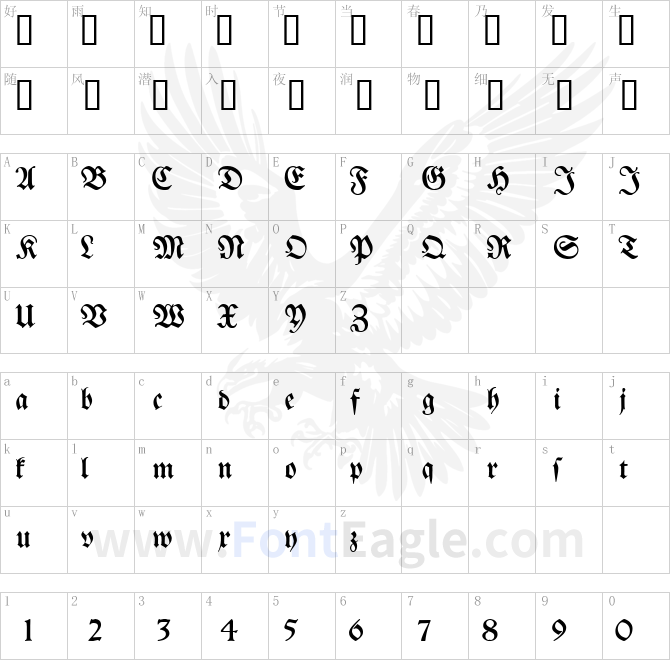
- Font name:Breitkopf Fraktur
Breitkopf-Fraktur is a great font, widely used in graphic design, single-page menu design, poster design and other fields, and is deeply loved by designers.Breitkopf-Fraktur download.